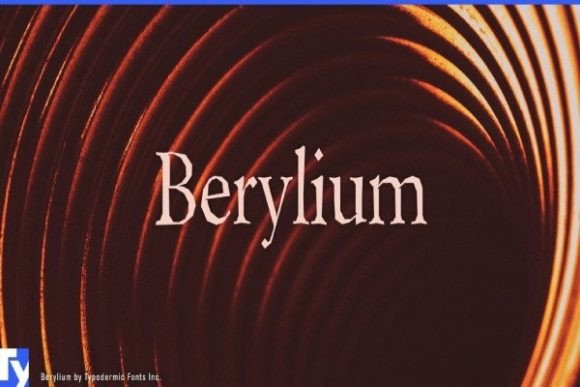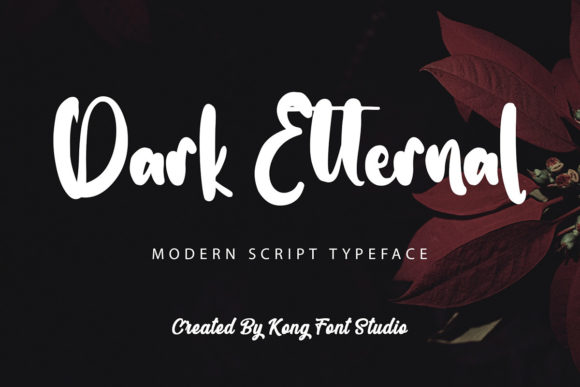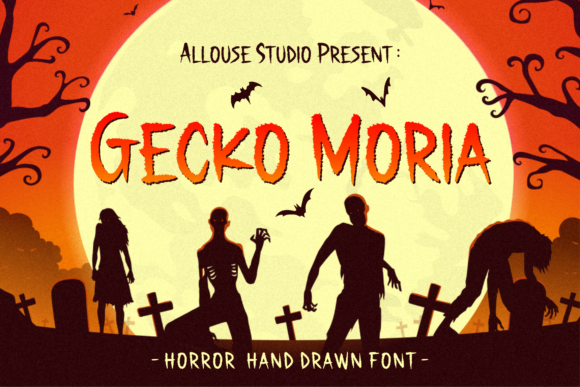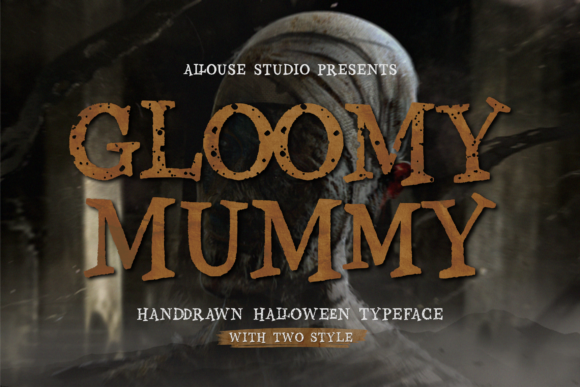
Almost every Halloween design guide sells you the loud part: the dripping headline, the gothic capitals, the skull dingbats. Almost none of them tell you what goes underneath. That second font, the one carrying the date, the address, the RSVP line, is what separates a design that looks finished from one that looks like a font demo. This is a guide to Halloween font pairing, built around the supporting half of the design.
Three Rules for Halloween Font Pairing
Good Halloween font pairing comes down to hierarchy and restraint rather than finding two fonts that happen to look nice side by side.
One loud font, maximum. If your headline is a dripping horror face, everything else on the page should be quiet. Two attention-seeking fonts in one layout read as amateur, not atmospheric.
Contrast the category, not the mood. Pair a script with a serif, or a display face with a sans serif. Pairing two scripts or two display faces almost always fails because they compete on the same axis.
Keep the mood consistent. A gothic headline over a cheerful rounded sans serif sends contradictory signals. The supporting font should be neutral or quietly aligned with the theme, never fighting it.
Role One: The Atmospheric Script
Use these as a secondary accent for names, signatures, and short phrases under a bolder headline.
Motherblood
Motherblood is a sweet and friendly handwritten font. Its natural and unique style makes it incredibly fitting to a large pool of designs.
Tobacco Road
Tobacco Road is a retro vintage Serif font perfect for branding, logos, headlines, covers, websites, quotes, t-shirt designs, and more.
Trick or Treat
These fonts are often used in designs that aim to convey a playful or artistic feel, such as children’s books, posters, invitations, greeting cards, and more.
Gloomy Mummy
Gloomy Mummy is a superb Halloween inspired font that will enhance your work with its spooky feel.
Sinister Brush
Sinister Brush is a playful and cool handwritten font. It has unique and well-balanced characters, and as a result, it matches a wide pool of designs.
Gecko Moria
Gecko Moria is a horror handwritten font that will give your work a spooky vibe. Created by Allouse Studio
Farmhouse Pumpkin
Farmhouse Pumpkin is a cute and lovely handwritten font duo (sans and script). Its casual charm and fun personality are perfect for creating cozy autumn designs.
California
Calirfornia is a beautiful handwritten font ideal for logos, wedding stationery, photography watermarks, modern websites, and more.
Berylium
Berylium is an Old-Style serif typeface with a jagged edge treatment resembling cut paper or metal.
Role Two: The Quiet Workhorse
Serif and sans serif faces that stay readable while still fitting a Halloween palette. This is the font your fine print should use.
Dark Ethernal
Dark Ethernal is a modern and playful handwritten script font. It’s great for crafters and designers.
Santa Catalina
Santa Catalina is a beautiful handwritten font ideal for logos, wedding stationery, photography watermarks, modern websites, and more.
Spiderweb Army
Experience the enchantment of the one-of-a-kind Spiderweb color Font Color, expertly crafted to infuse your projects with an awe-inspiring dash of mystique.
Razor Keen
Razor Keen is frightful slasher cacography, scrawled with a mapping quill on newsprint. Created by Typodermic Fonts
Preppy Autumn
Wrap your autumn designs in cozy preppy aesthetic, warm seasonal colors, and handcrafted charm with Preppy Autumn, a decorative fall color font!
Battle Army Stencil
Battle Army Stencil is a bold sans-serif army grunge font inspired by battlefield markings and military stencil typography.
Loving Ambros
Loving Ambros is a luxurious and beautiful serif font made mainly for headlines, titles, advertising, vintage mood boards, branding, logotypes, packaging, editorial design, logos, websites, social media quotes, weddings, branding, and modern and vintage designs.
Gloomscript
Invoke dark romance and timeless allure with Gloomscript, an elegant, expressive serif font!
Role Three: The Statement Piece
Display faces distinctive enough to lead a design, provided you keep the rest of the layout restrained.
Grenada
Grenada is a sweet and simple duo font (script and dingbats), ideal for giving your projects a branded but friendly feel.
Teacher Treats
✨ Bring a touch of sweetness and creativity to your classroom with “Teacher Treats” – the ultimate teacher’s best friend font!
Can I pair two Halloween display fonts together?
Rarely successfully. Both will compete for attention. If you must, make one dramatically larger than the other so the hierarchy is unambiguous.
Do these fonts work outside the Halloween season?
The Role Two serif and sans serif picks absolutely do, and several of the scripts are subtle enough for year-round use in horror publishing or dark-themed branding.